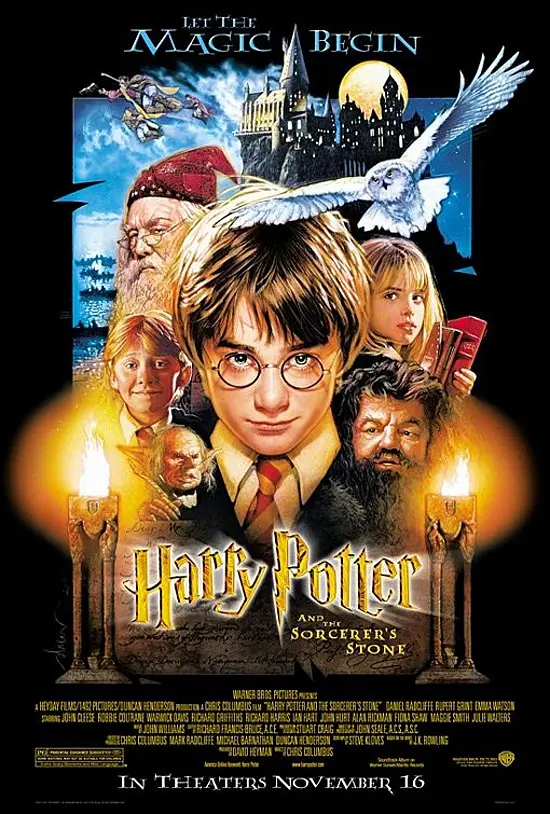
Create magical text effects with authentic Harry Potter movie fonts
Official Harry Potter movie poster showcasing the distinctive magical typography that inspired our font generator
Harry Potter is a beloved fantasy film series based on the novels by J.K. Rowling, following the magical journey of a young wizard and his friends at Hogwarts School of Witchcraft and Wizardry. The distinctive typography used throughout the Harry Potter films has become iconic, featuring elegant, magical letterforms that perfectly capture the enchanting atmosphere of the wizarding world. From the famous lightning bolt logo to the ornate lettering used in Hogwarts letters and magical documents, these fonts transport viewers into a world of spells, potions, and magical creatures. Our Harry Potter Font Generator allows you to recreate these authentic magical text effects for your own projects, whether you're creating fan art, invitations to magical events, social media content, or any design that needs a touch of wizarding world charm.
Master the art of magical typography with our step-by-step guide to creating authentic Harry Potter text effects
Type your desired spell, name, or magical phrase. The generator works best with words up to 30 characters for optimal magical effect.
Select from Gryffindor, Slytherin, Hufflepuff, or Ravenclaw color schemes, or create your own magical combination.
Enhance your text with glowing auras, mystical shadows, and enchanting background elements.